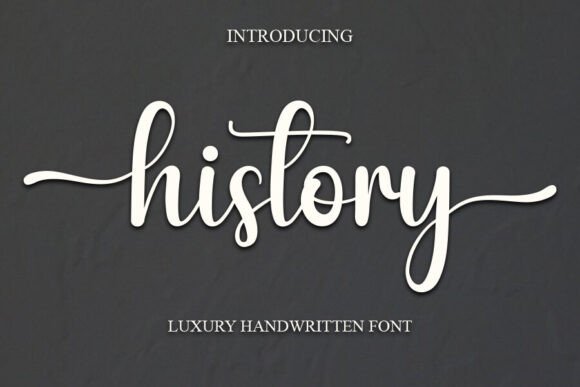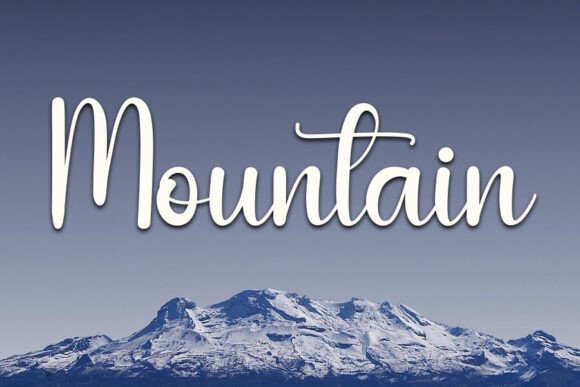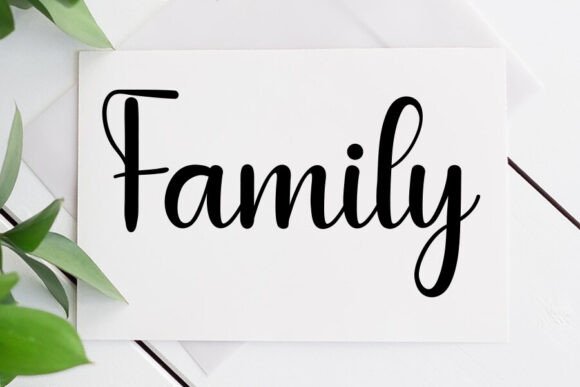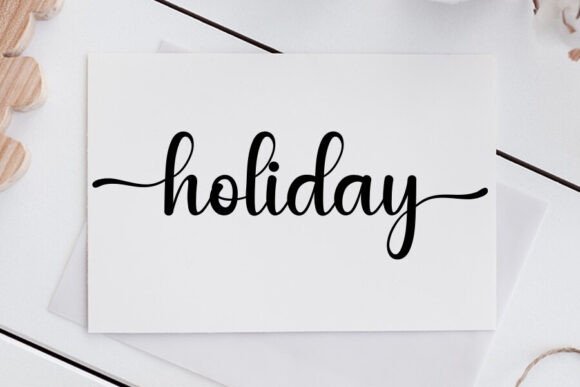
History Font
About the History Font
Discover the charm of History Font. This font is a perfect blend of modern aesthetics and classic appeal. History is a sweet and cursive handwritten font. This gentle font will look gorgeous on a variety of design ideas. It will add a joyful and romantic touch to each of your projects! Perfectly fit for branding, logo, wedding things, greeting cards, fashion, lookbook, marketing promotion, and any time you want your design to look fancy and elegant but still casual.
History Font’s flowing script is ideal for headlines, short text blocks on invitations or packaging, and branding elements where a touch of romantic elegance is desired. It excels in applications requiring a handcrafted feel, such as logos for boutiques, wedding stationery, or product labels emphasizing a premium or handcrafted quality. However, its cursive nature makes it unsuitable for body text or UI elements; legibility suffers in longer passages.
Consider pairing History Font with a clean sans-serif like Montserrat for a modern contrast, or a classic serif like Garamond for a more traditional feel. For a playful juxtaposition, a geometric sans-serif such as Futura could be effective. These pairings provide readability where History Font falls short, while still retaining its charming, elegant personality.
The overall personality of History Font is undeniably romantic and elegant, yet maintains a casual approachability. It evokes feelings of warmth and nostalgia, making it a strong choice for brands and projects focused on handmade products, artisanal goods, or special events.